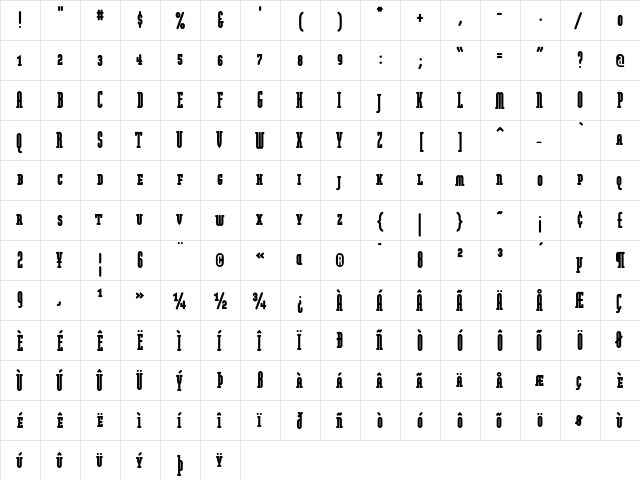
Modula RoundSerifUltraSmCap Font Preview
Modula RoundSerifUltraSmCap
Modula RoundSerifUltraSmCap Font Details
| Style | RoundSerifUltraSmCap |
| Copyright | Copyright (C) 1995 Emigre Graphics, Designed by Zuzana Licko |
Design Context for Modula Typeface
Modula carries the refined structure of traditional serif typography, with bracketed terminals and considered proportions that communicate credibility and craft.
Pro Tip: Use Modula for editorial body copy and considered headline work. Pair with a neutral sans for UI elements or captions to create a classic hierarchy.